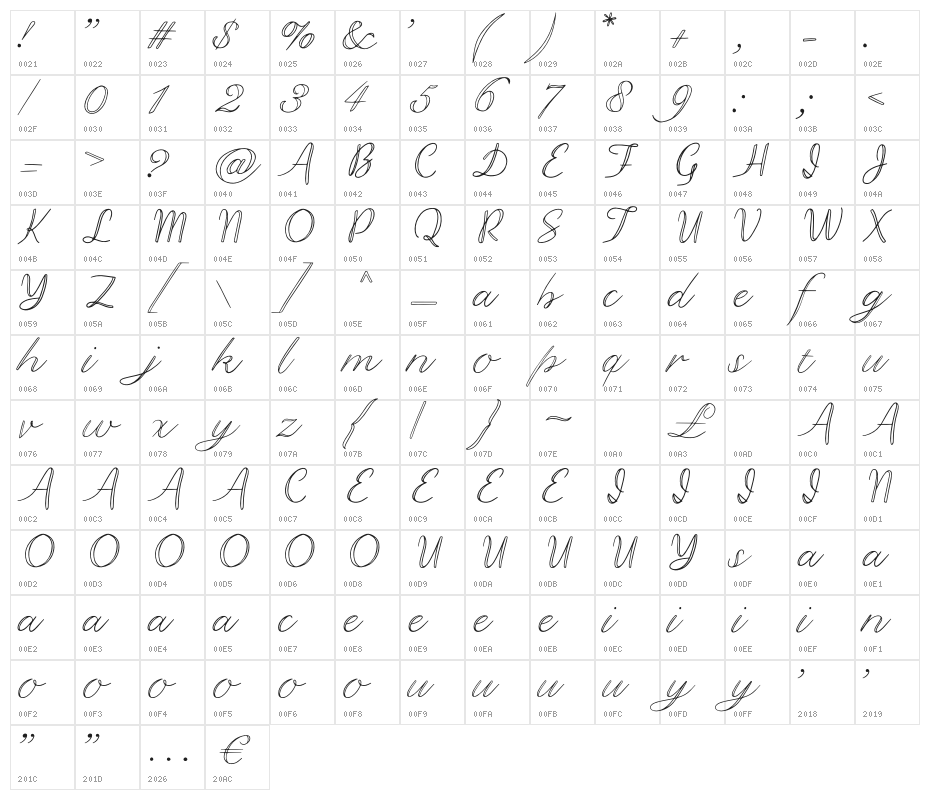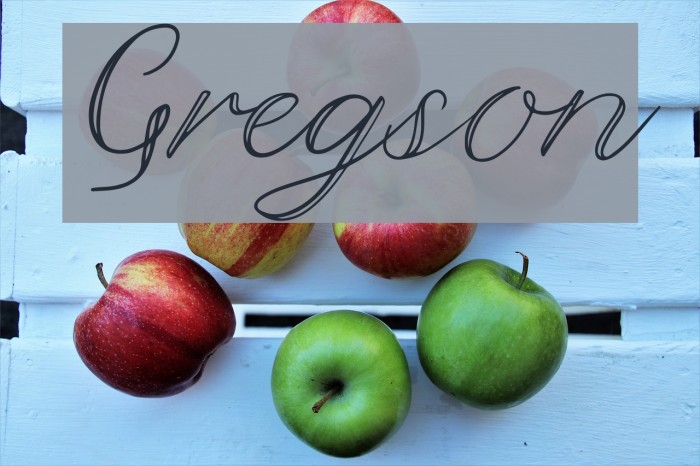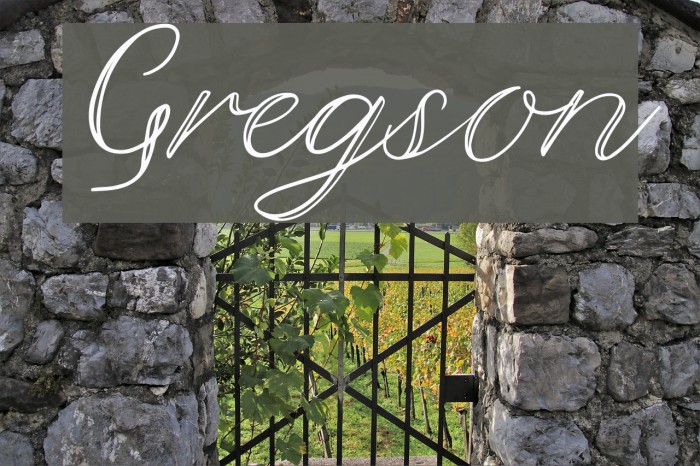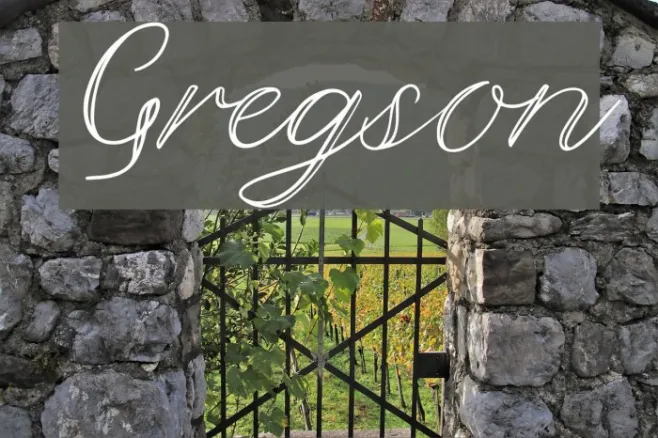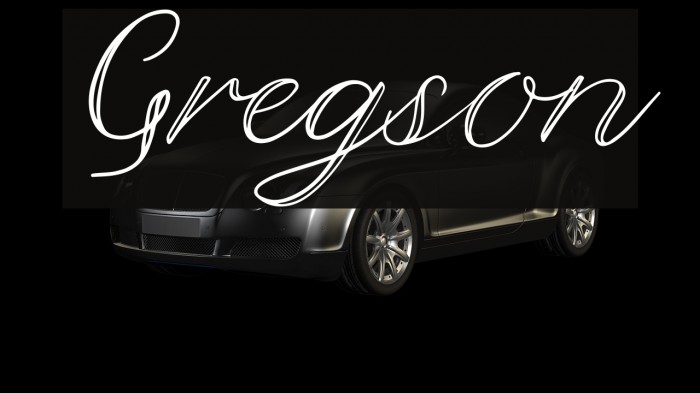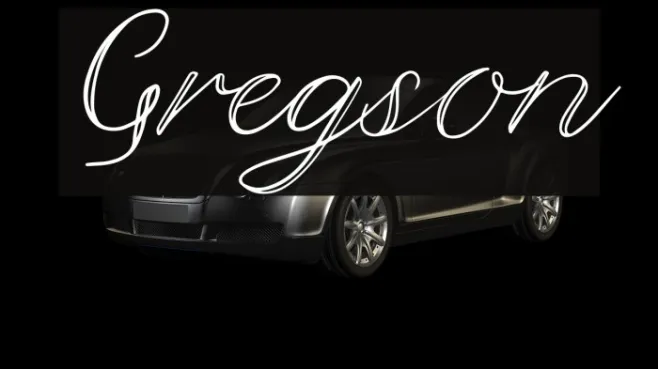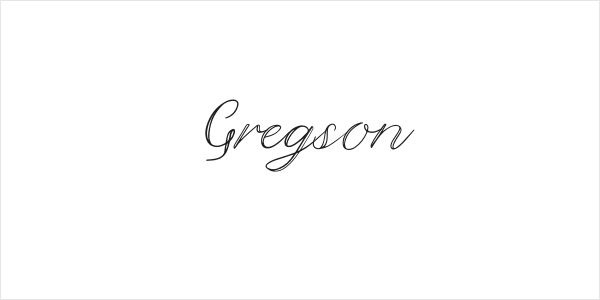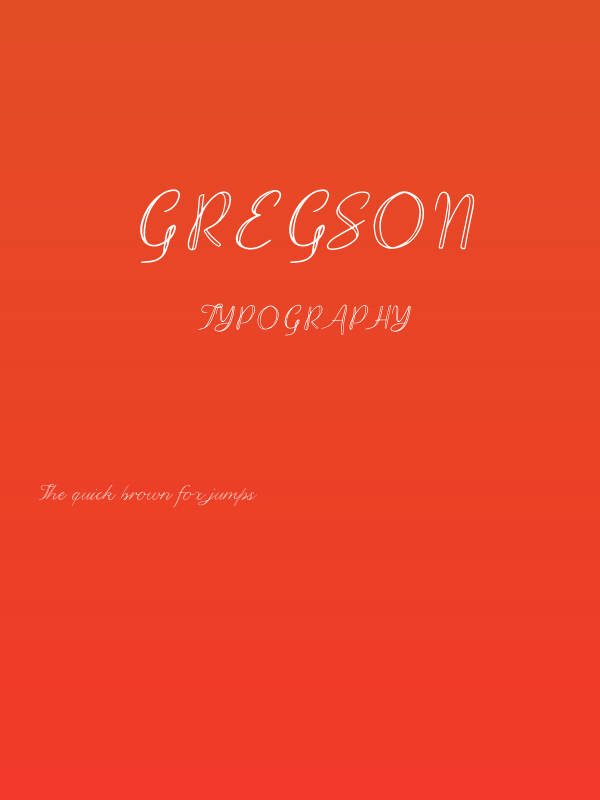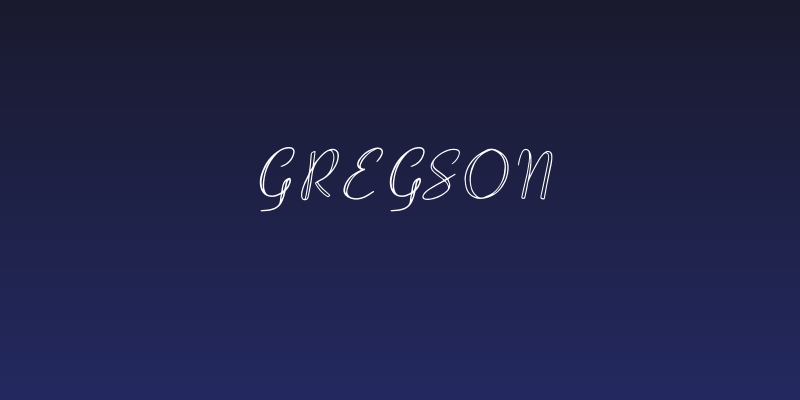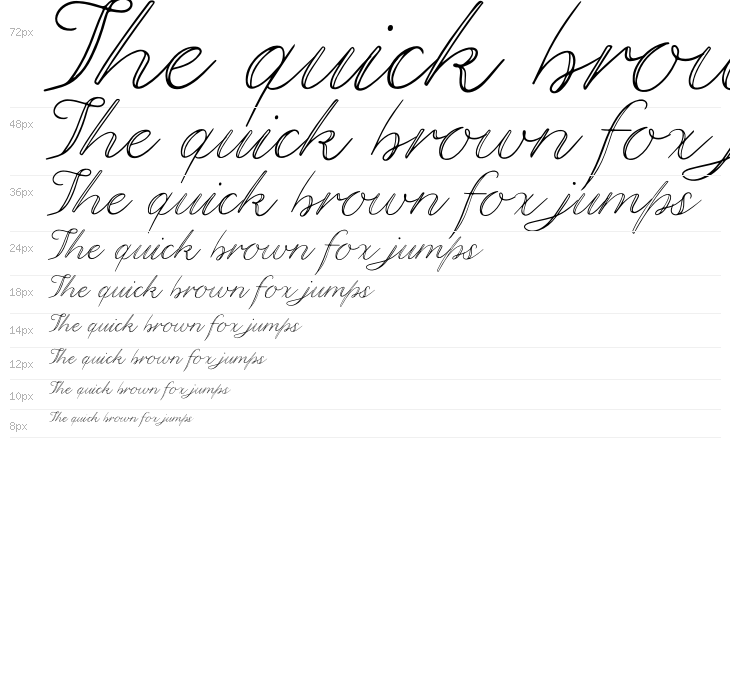
Gregson Font
Gregson Description
This elegant script font features a flowing, cursive style with a sophisticated and graceful appearance. The characters are connected, creating a seamless and fluid look that is both classic and modern. The uppercase letters are slightly more embellished, while the lowercase letters maintain a consistent, smooth flow. The numerals and special characters are designed to match the overall aesthetic, providing a cohesive look across all elements. The font's thin strokes and gentle curves give it a delicate and refined feel, making it ideal for formal and decorative uses.
| Overall Style | Elegant and Decorative |
| Use Case | Logos, Invitations, Decorative Text |
| Proposed Projects | Ideal for wedding invitations, elegant branding, greeting cards, and decorative signage. |